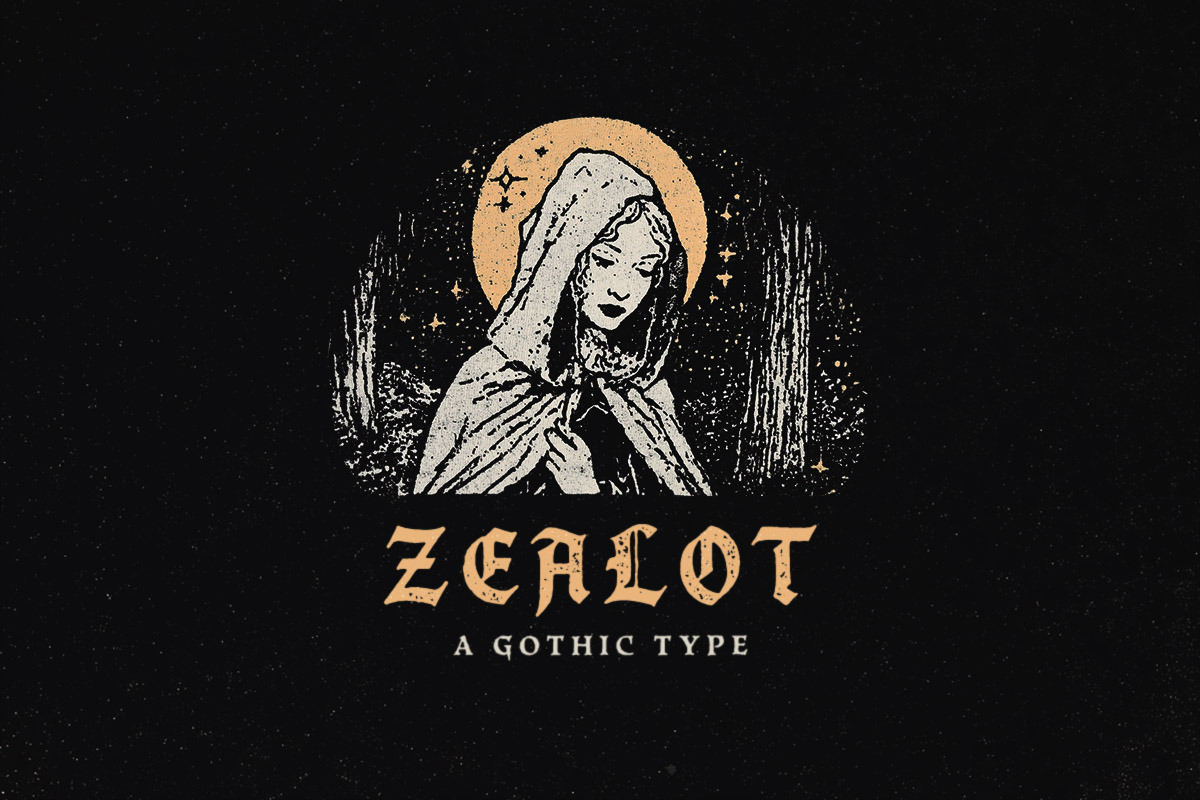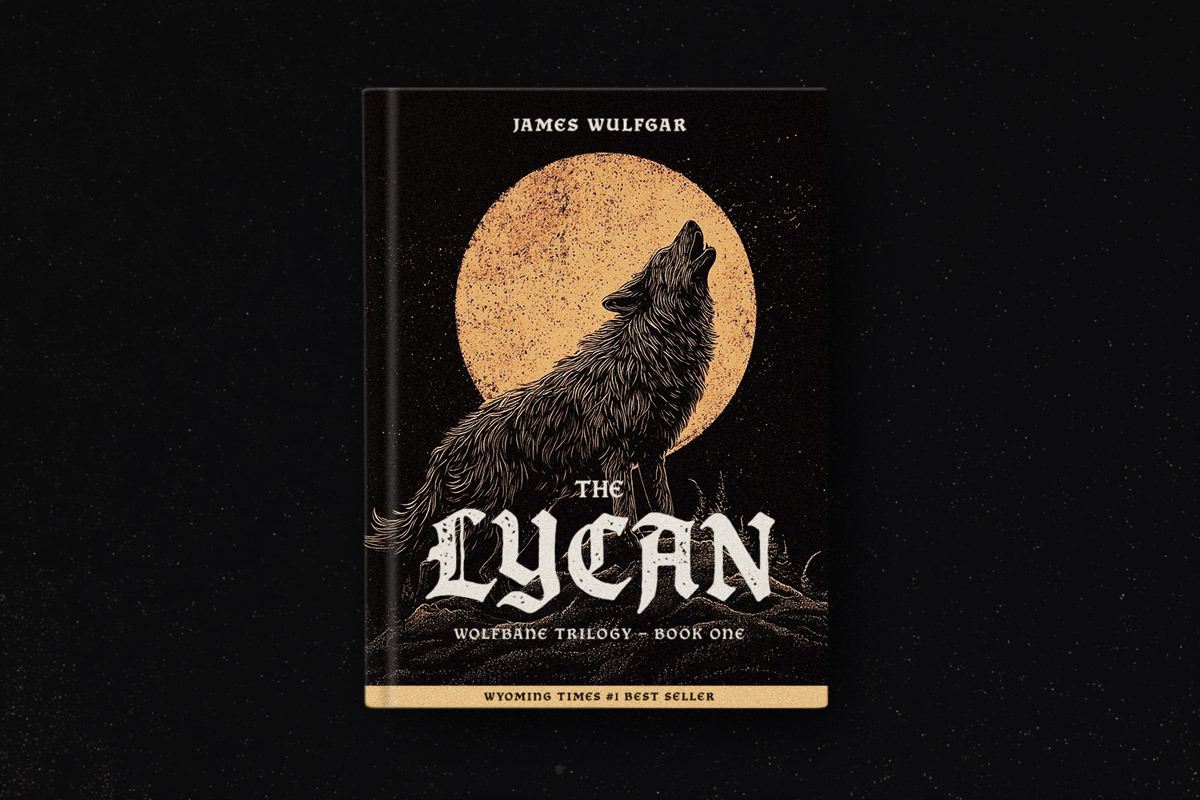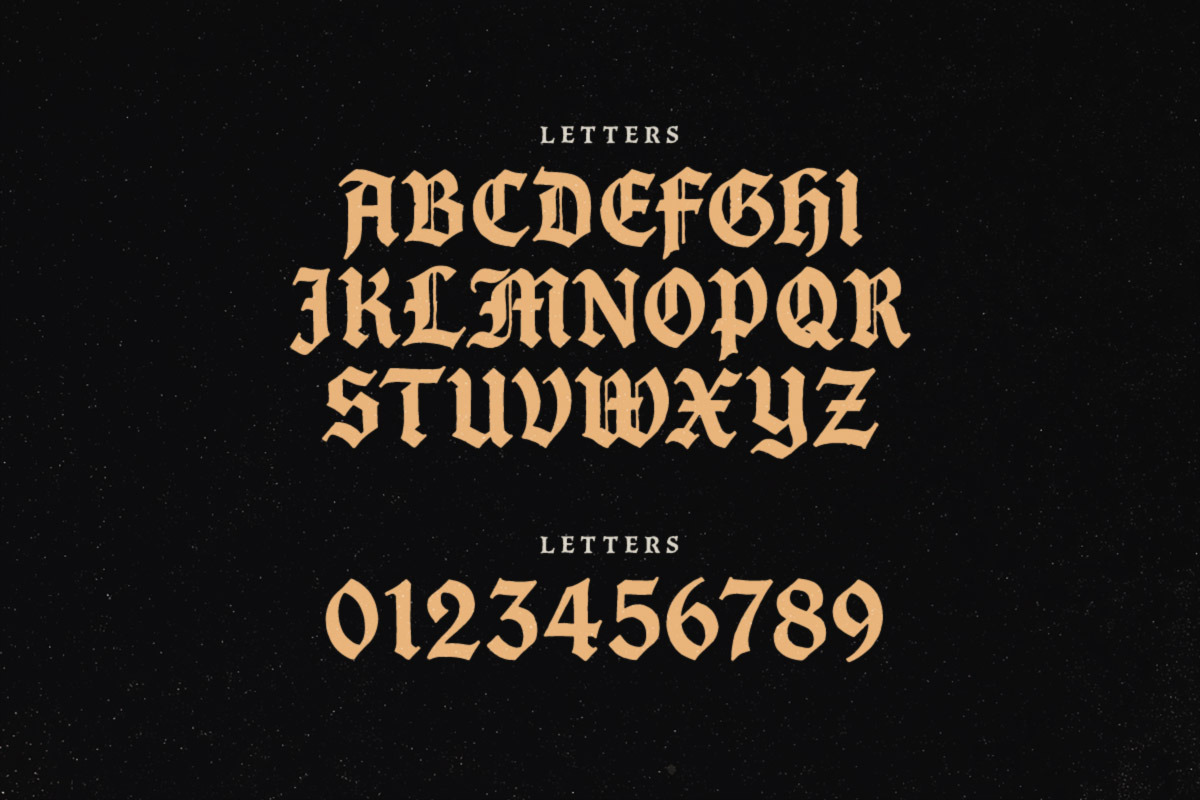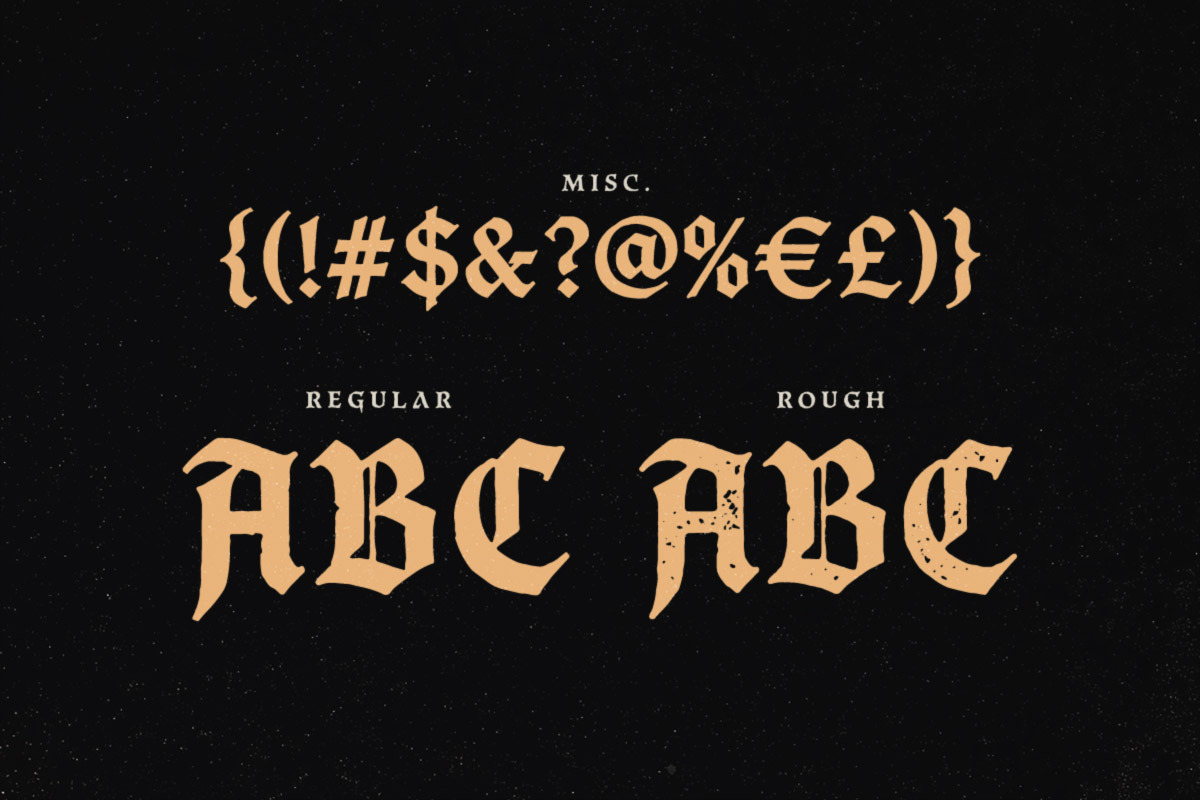
Zealot Typeface
Zealot is a bold gothic display font inspired by medieval blackletter typography and dark religious iconography. Featuring sharp serifs, dramatic letterforms, and optional rough texture, Zealot is ideal for book covers, fantasy novels, metal band logos, gothic branding, posters, album artwork, tattoos, and dark editorial design. Includes uppercase letters, numbers, punctuation, and symbols for powerful, old-world typography.